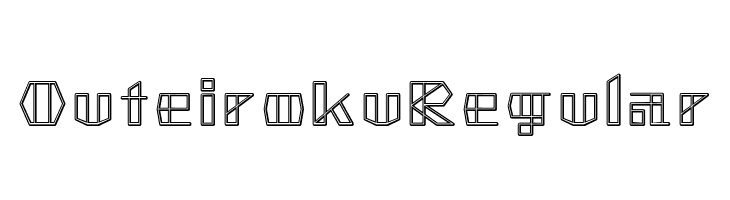
• Outeiroku Regular schriftart
A geometric, outlined font with a modern, futuristic style.
• Outer Space schriftart
A bold, decorative font with high contrast and a futuristic, distressed style.
• Outer zone schriftart
A futuristic, geometric font with bold, angular shapes and a modern aesthetic.
• Outerlord schriftart
A bold, handwritten script font with a playful and dynamic style.
• Outerspace Militia schriftart
A bold, futuristic font with a distressed, stencil-like appearance.
• Outerspace Shoping schriftart
A distressed, stencil-like font with a bold, grunge aesthetic.
• OuterspaceMilitia schriftart
A bold, futuristic font with a distressed, stencil-like appearance.
• Outfielder Personal Use schriftart
A bold, athletic font with a vintage sports jersey style and three-dimensional shadow effect.
• Outfill schriftart
Decorative script font with elongated lines.
• Outgunned schriftart
A display font made of weapon silhouettes instead of standard characters.